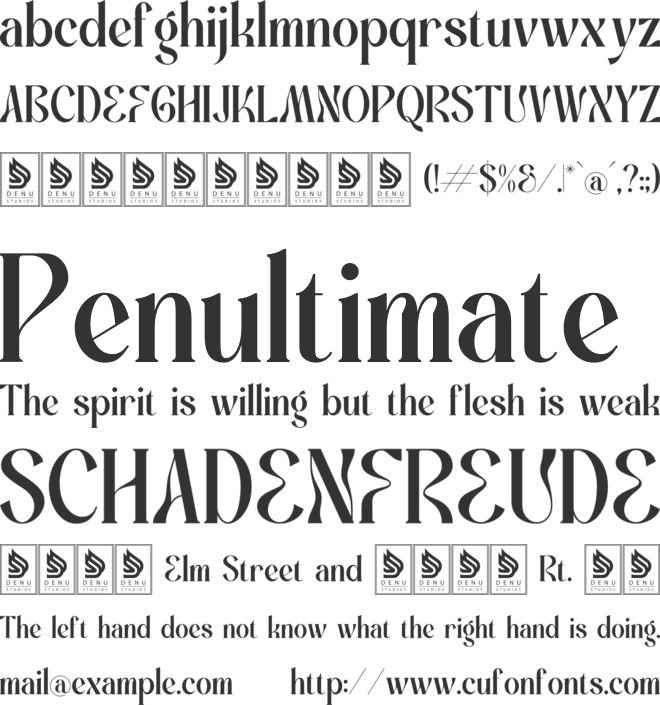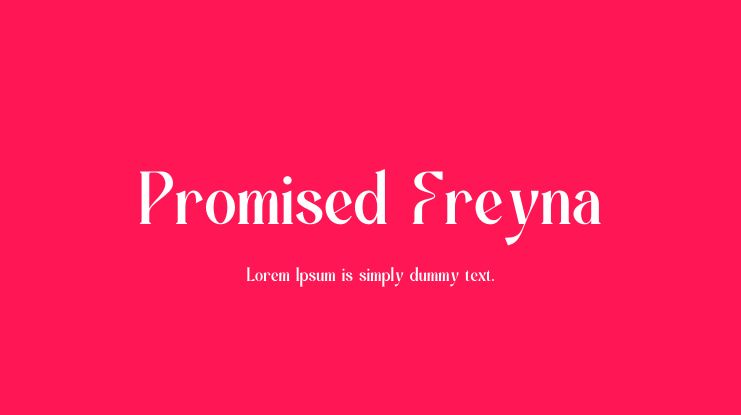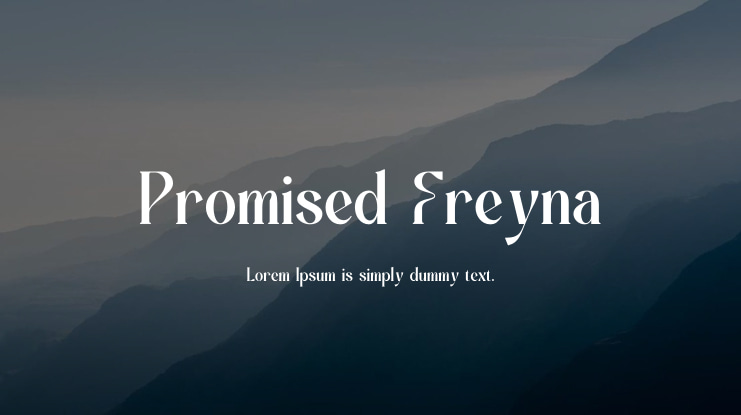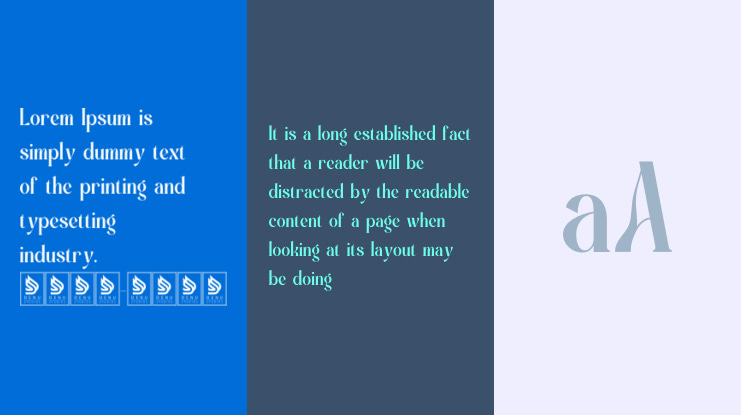
Promised Freyna Font
Promised Freyna | Modern Display Serif is suitable for any projects such as: logos, branding projects, homeware designs, product packaging, mugs, quotes, posters, shopping bags, t-shirts, book covers, name cards, invitation cards, greeting cards, labels, photography, watermarks, special events, and all your other lovely projects that need a Modern Display Serif taste.